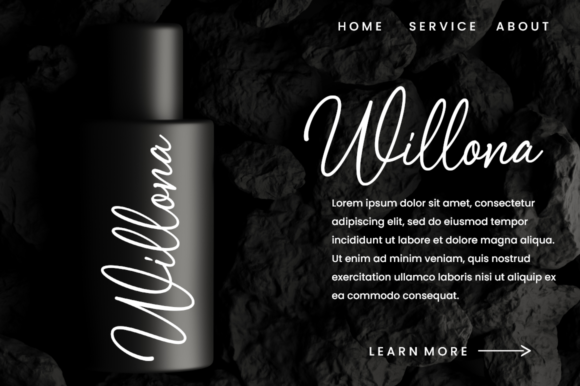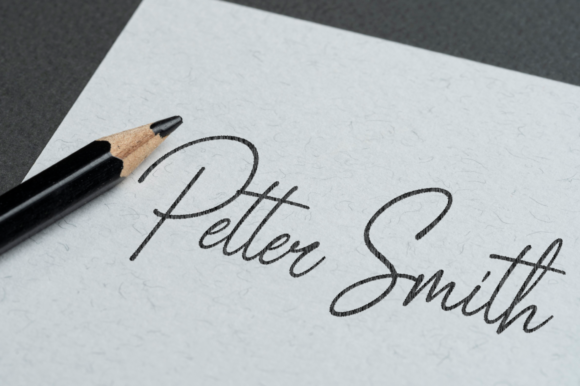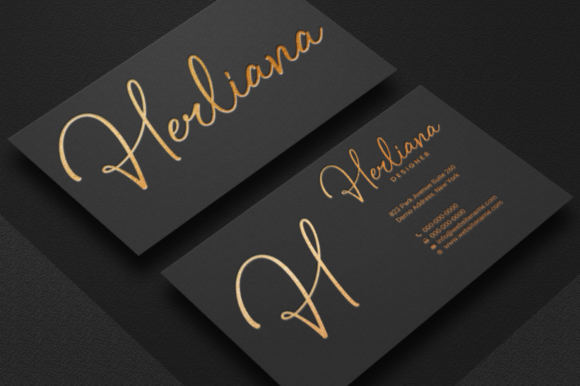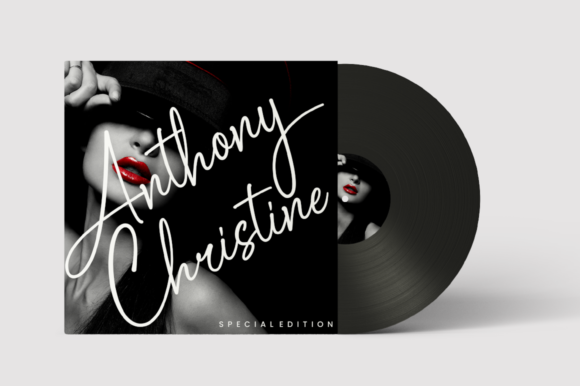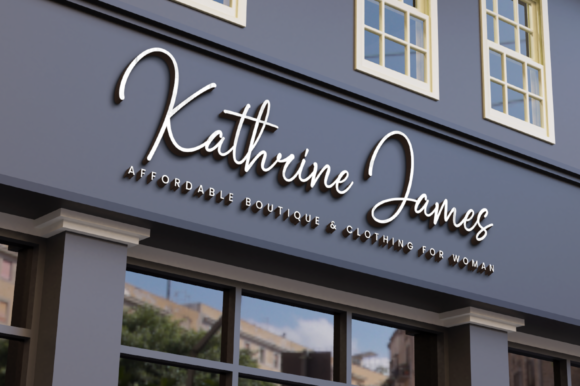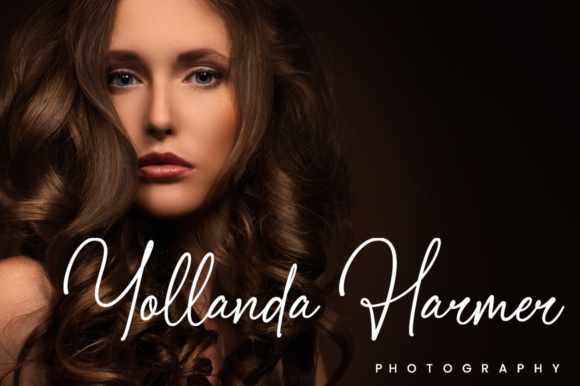
Introduction to Sagetarius Font
Have you ever found yourself lost in the creative process, searching for that perfect font to bring your design to life? It’s a moment we’ve all been there – staring at a blank canvas, scrolling through endless options, and suddenly, it hits you – the perfect font appears, and your entire project transforms. This is exactly what happens when you stumble upon the Sagetarius Font, an exquisite handwritten font that will become your new go-to design resource.
With its delicate and thin characters, the Sagetarius Font is ideal for a wide range of creative projects, from elegant invitations to stunning social media graphics. Its high-quality design makes it a valuable asset for any designer looking to add a touch of sophistication to their work.
Key Features of Sagetarius Font
- Designed with a unique, bold aesthetic, ideal for headings and titles in creative projects.
- Perfect for designers and artists working on creative projects, including graphic design, digital art, and more.
Honest Review: Sagetarius Font
As a designer, I’m always on the lookout for high-quality fonts that can elevate my creative projects. Recently, I had the chance to try out the Sagetarius Font, and I’m excited to share my thoughts with you.
- ✨ High-quality design: The Sagetarius Font is beautifully crafted with intricate details and a unique style that sets it apart from other fonts.
- ⚠️ Limited character set: The Sagetarius Font only includes a limited character set, which may not be suitable for designers who need to create long-form content.
- ⚠️ Not ideal for body text: Due to its unique style, the Sagetarius Font may not be the best choice for body text, as it can be difficult to read in large quantities.
Overall, I’m impressed with the Sagetarius Font’s unique design and high-quality construction. While it may not be suitable for all types of projects, it’s an excellent resource for designers working on creative projects that require a distinctive font. With a free download and transparent background, it’s definitely worth checking out.
Sagetarius Font
Tips for Getting the Most Out of Sagetarius Font
To get the most out of Sagetarius Font, use it on a transparent background to create a clean and modern design. Experiment with different font sizes and colors to create visual interest. You can also combine Sagetarius Font with other design resources, such as images and graphics, to create a unique and eye-catching design.
Common Use Cases for Sagetarius Font
Sagetarius Font is ideal for creative projects, such as brochures, flyers, and business cards. It’s also suitable for design elements, such as headers, footers, and captions. With its high-quality design and transparent background, Sagetarius Font is a valuable design resource for any project.